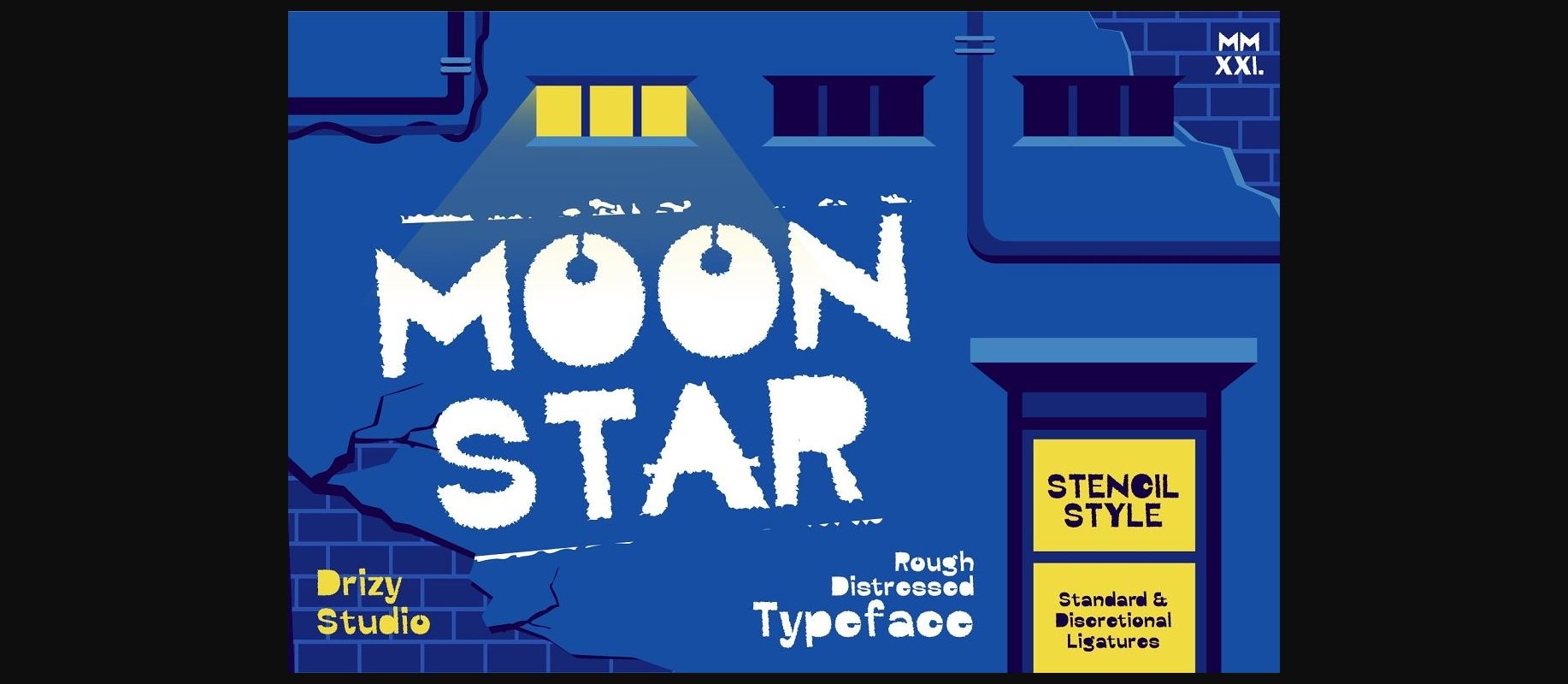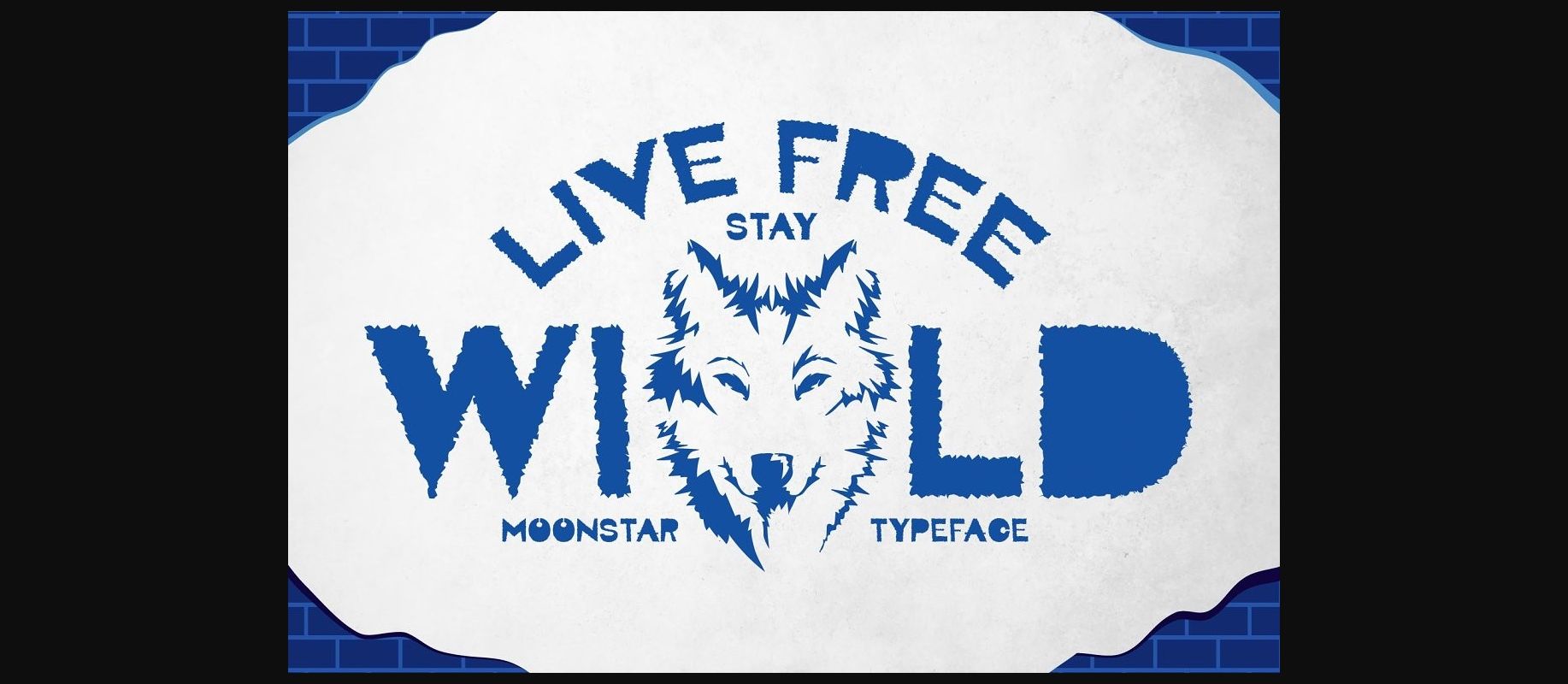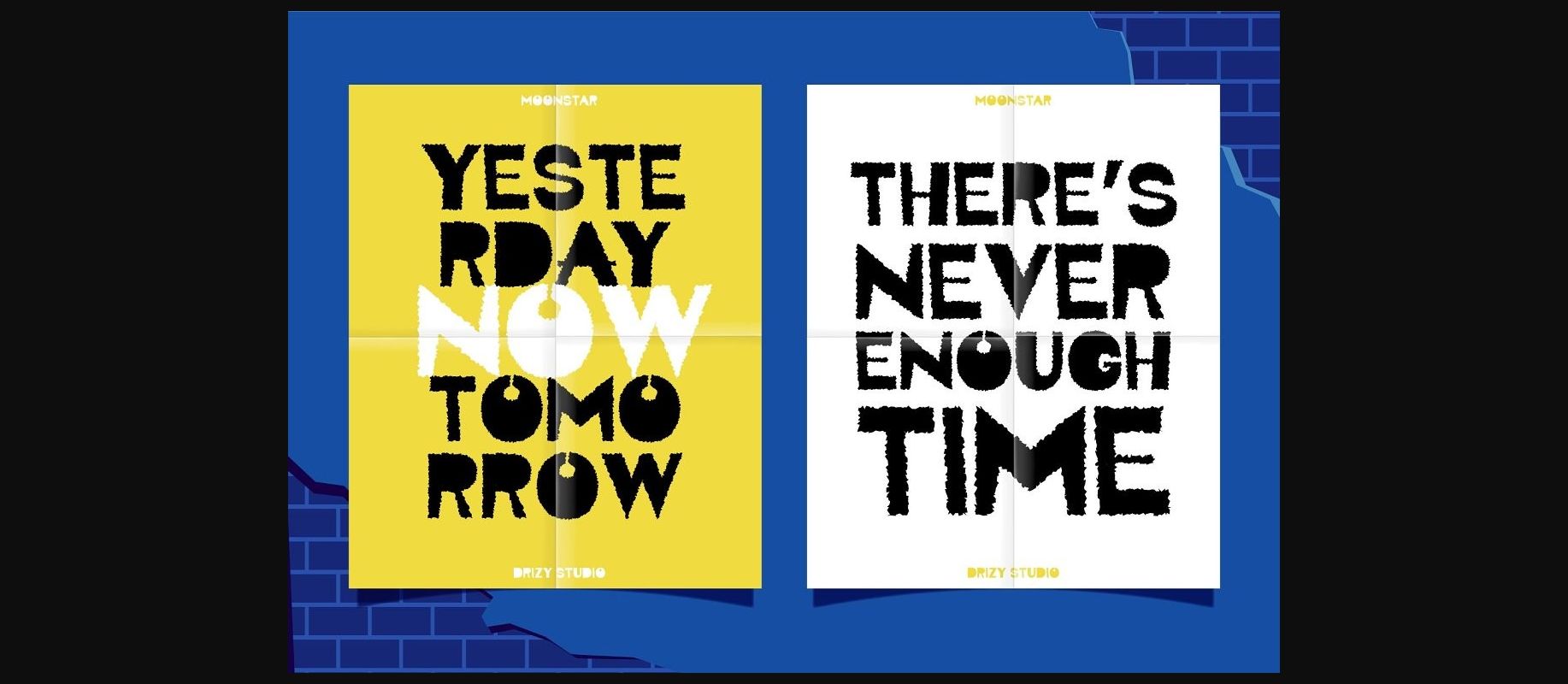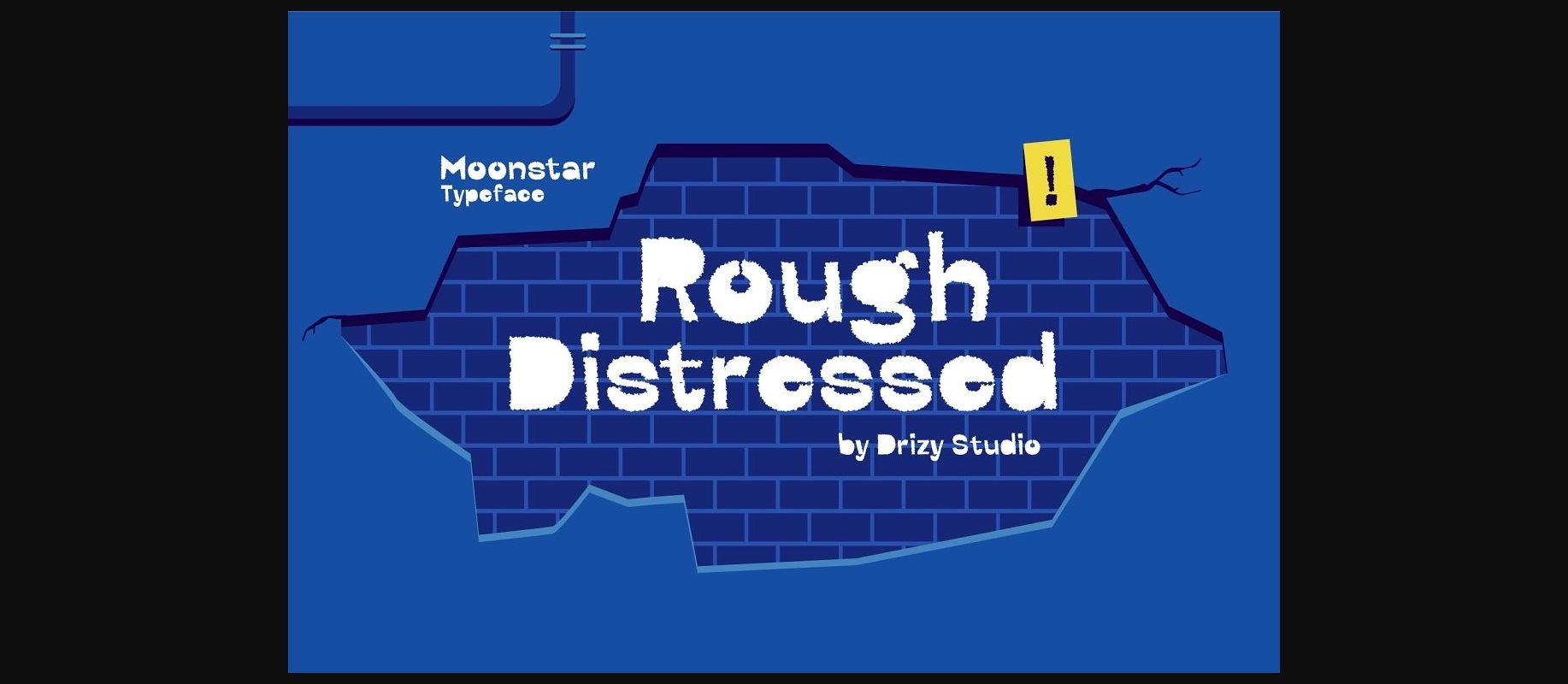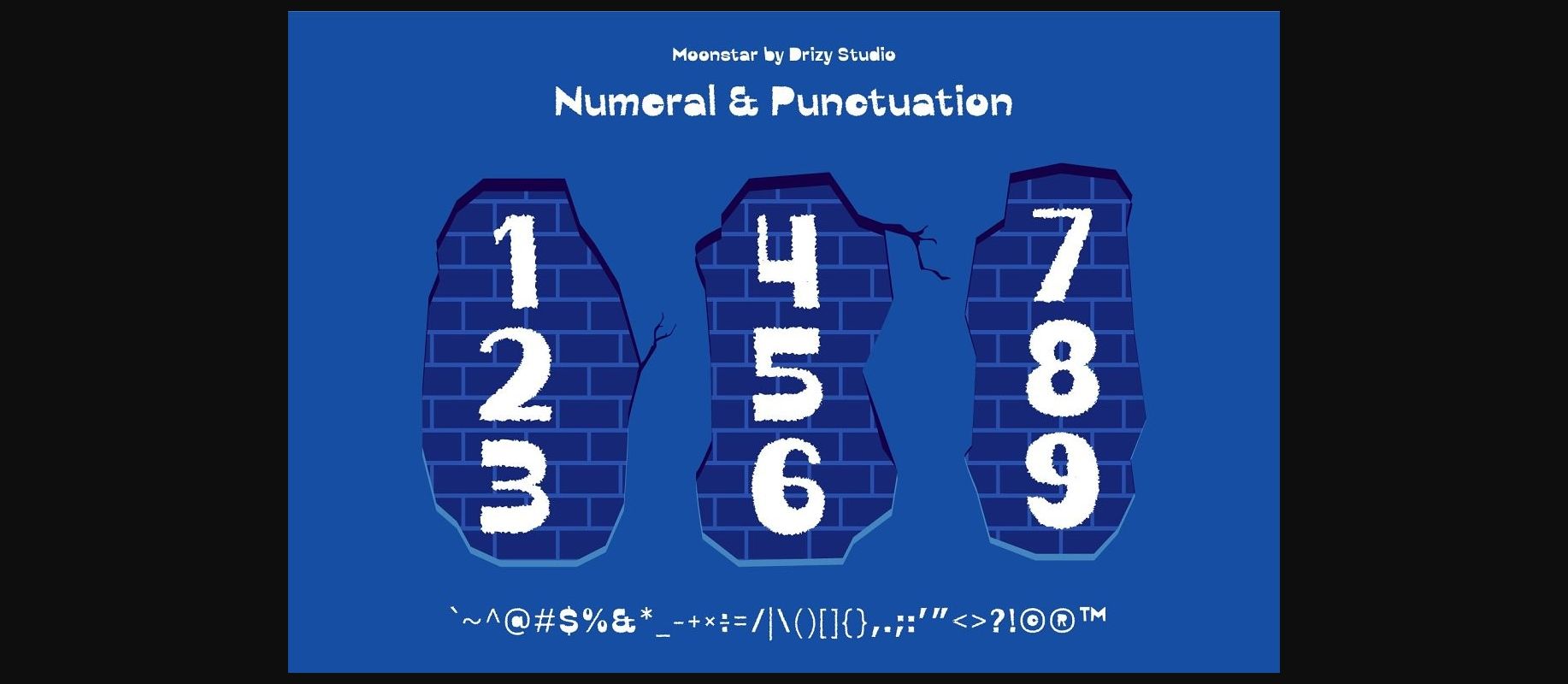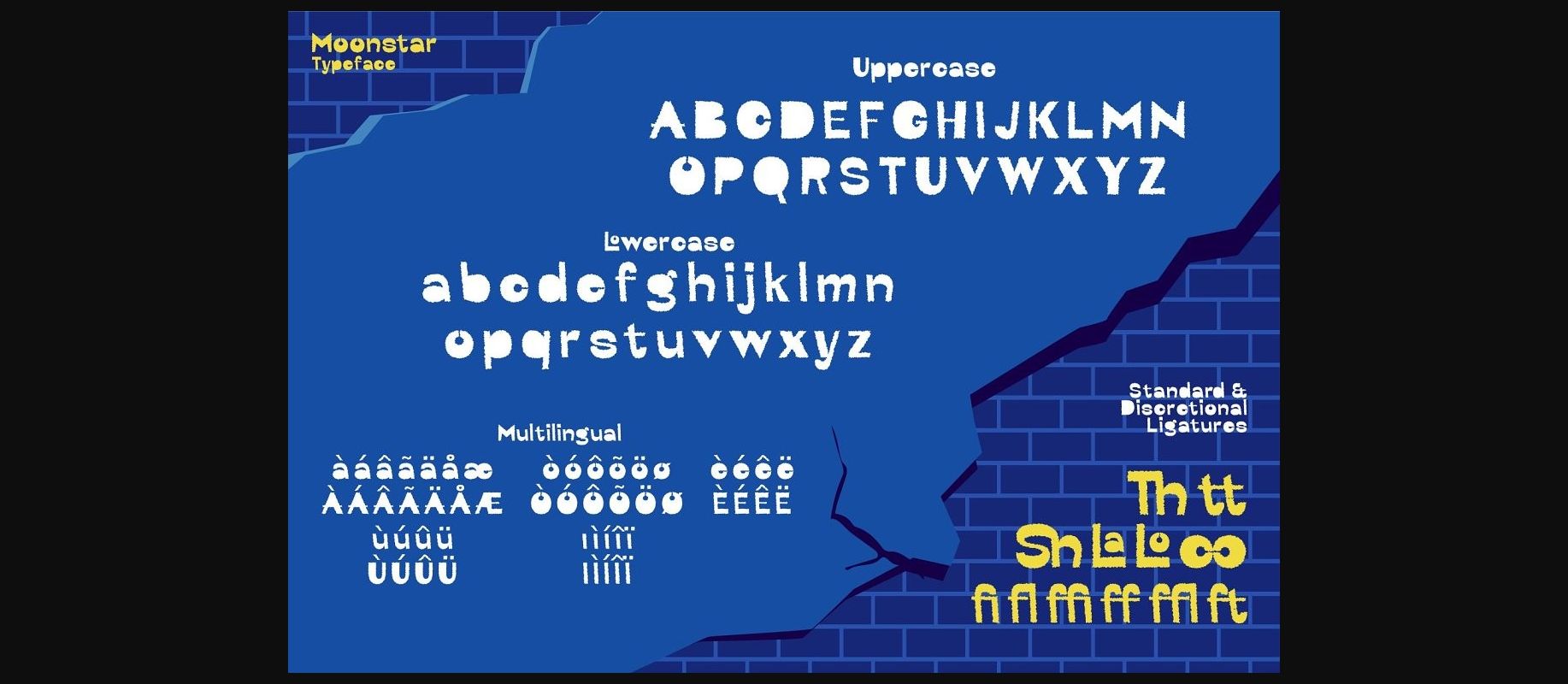
Moonstar Font
About Moonstar Font
Moonstar is a rough distressed decorative font that can take any item to the highest levels! Use it for children-related projects, storybooks, toys packaging, labels, and many other creative ideas.